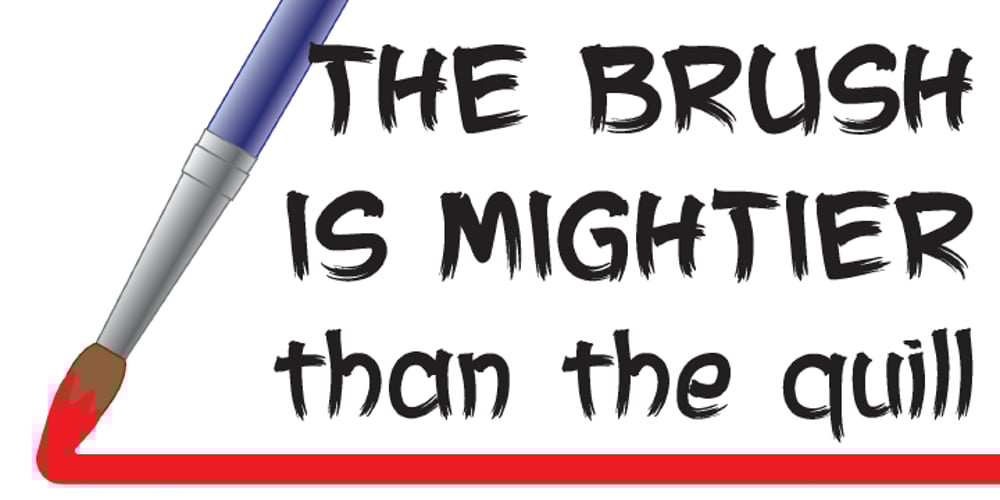
Brush With Death
Brush With Death font
Brush With Death Font Family was designed by Ronnie Cruz and published by Cyberian Khatru. Brush With Death contains 1 styles and family package options. This font was made possible by creating a custom brush in Illustrator. I started with a flat brush dipped in India ink to create the stroke. From a scan of that stroke I made a vector tracing which I then I altered as necessary to get the desired dimensions. The lower case letters have a thinner stroke than the capitals.